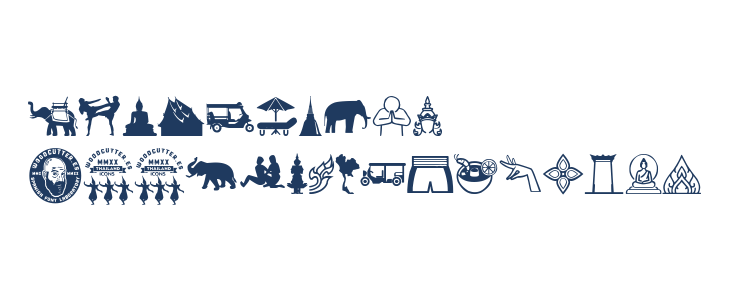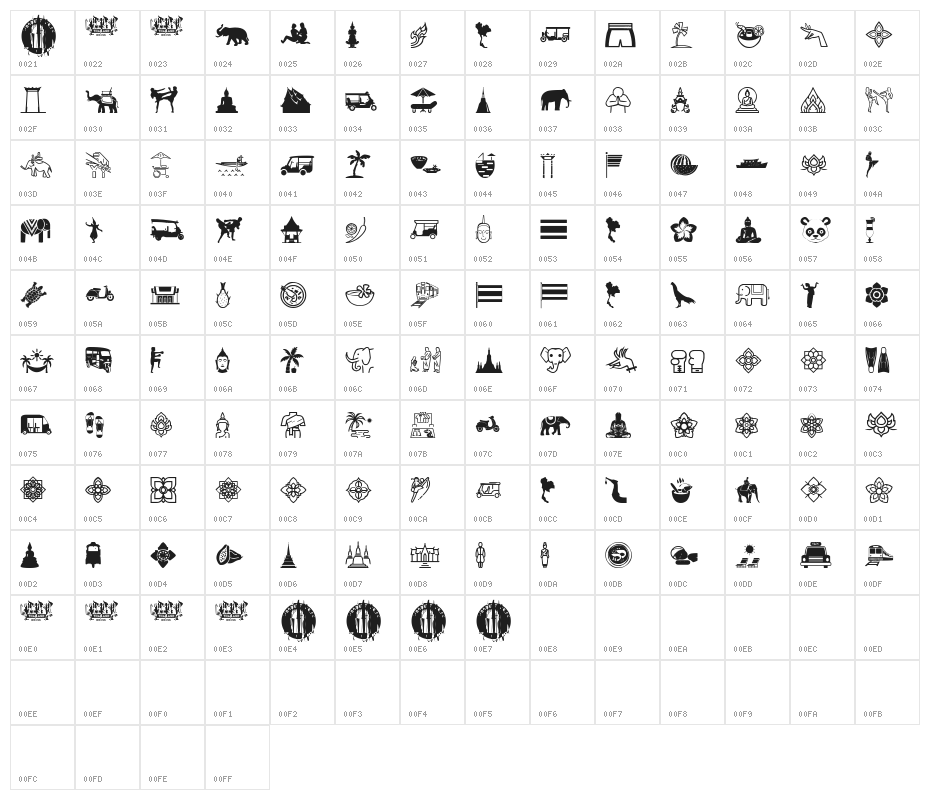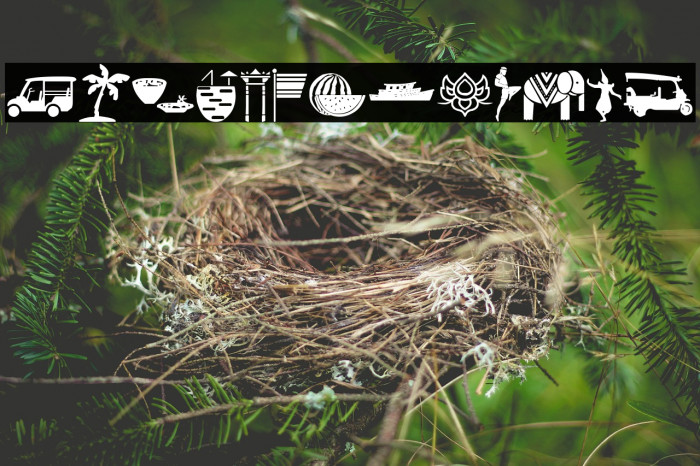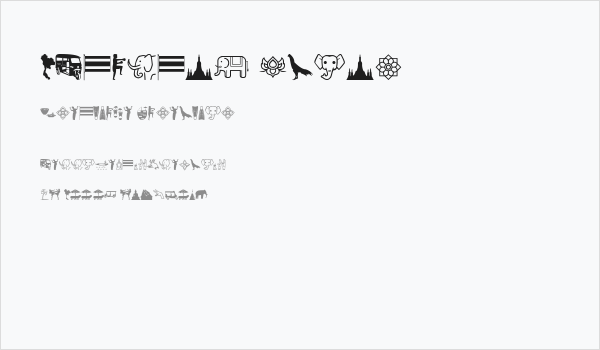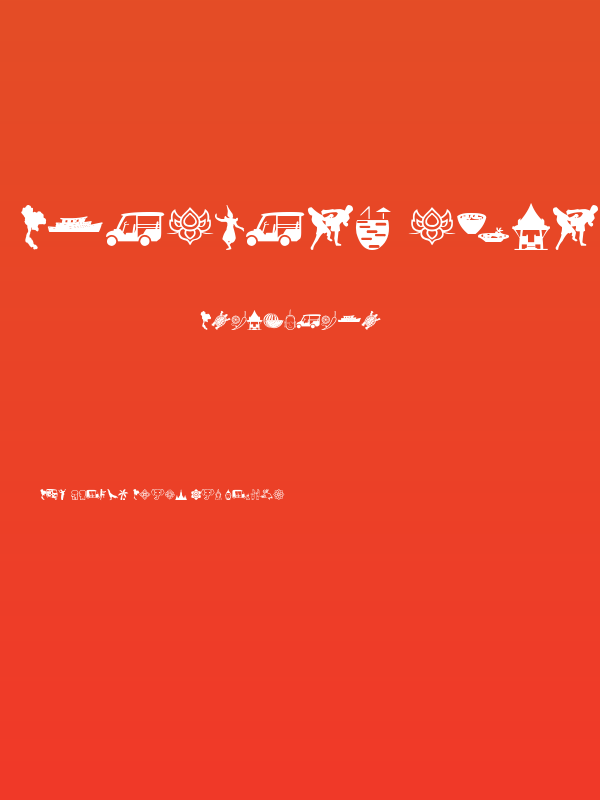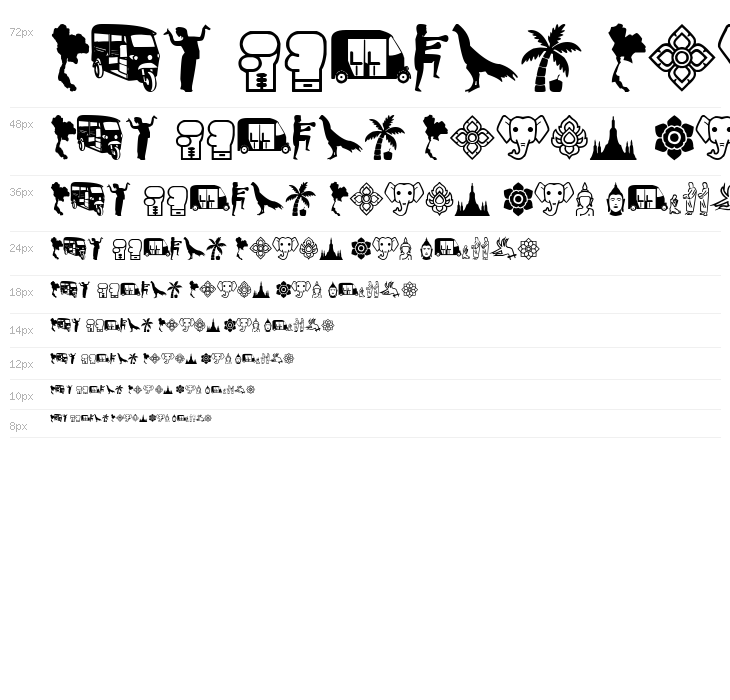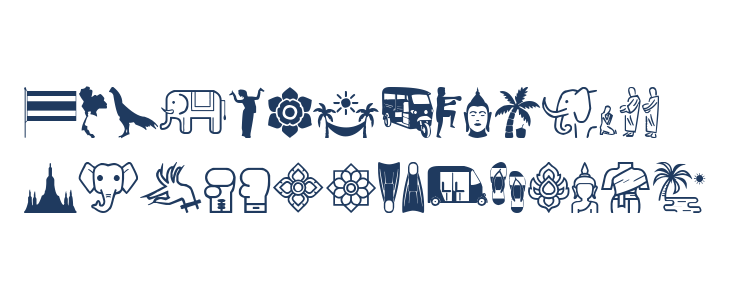
Thailand Icons Font
Thailand Icons Description
A decorative icon set featuring various symbols and motifs associated with Thailand, including cultural landmarks, traditional activities, animals, and local transportation. Each glyph is a detailed pictogram, making the set highly illustrative and thematic.
| Overall Style | Decorative, Thematic, Illustrative |
| Use Case | Icons, Logos, Themed headlines, Infographics |
| Proposed Projects | Tourism branding, travel guides, cultural event posters, educational materials, themed websites, souvenir design. |